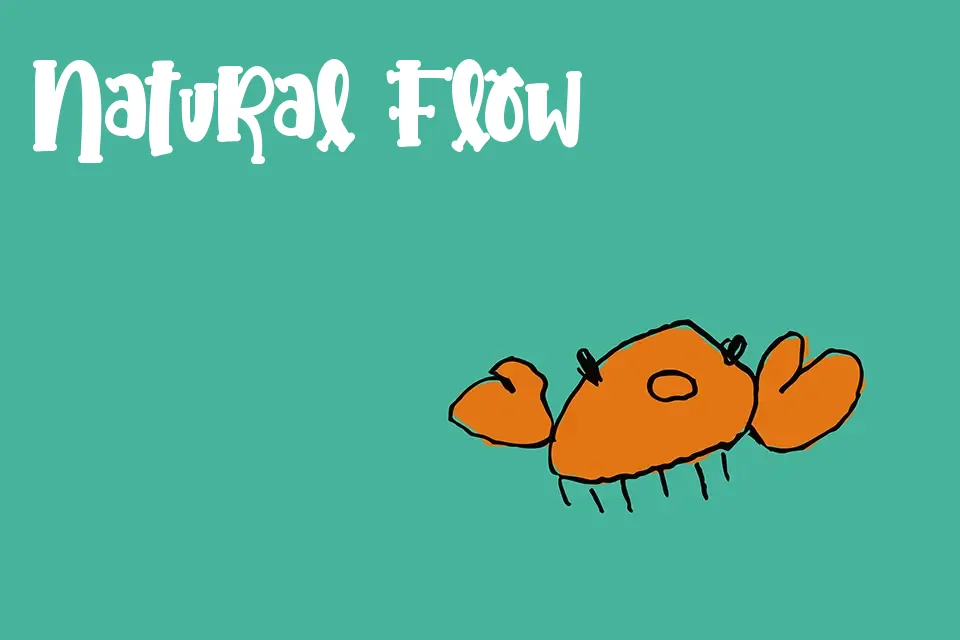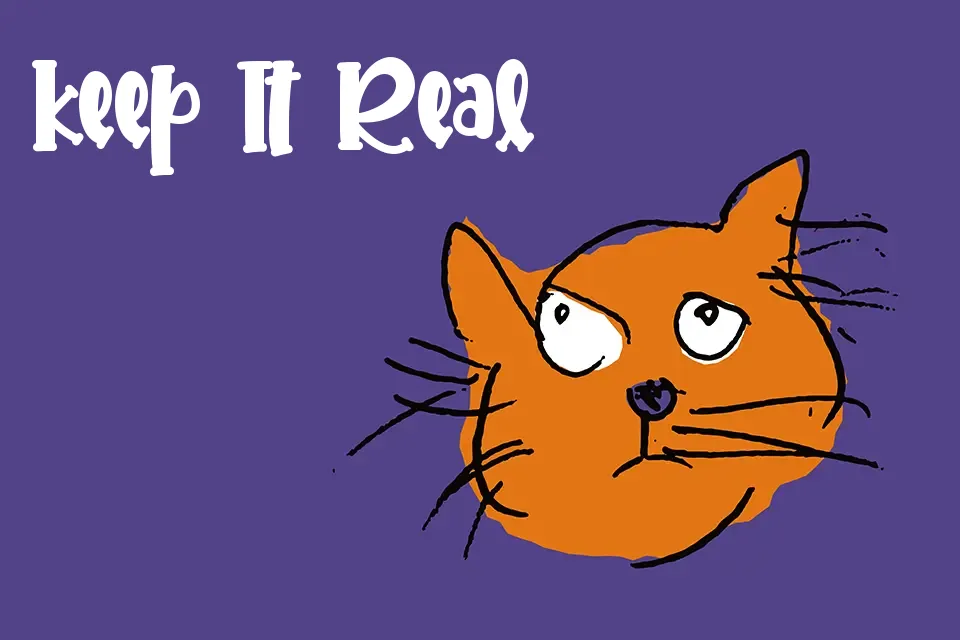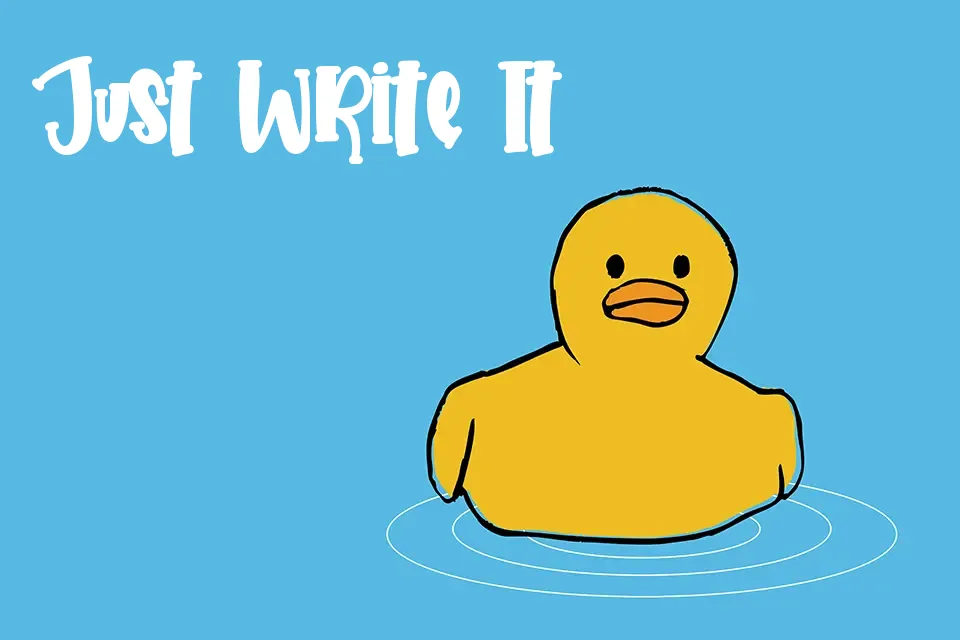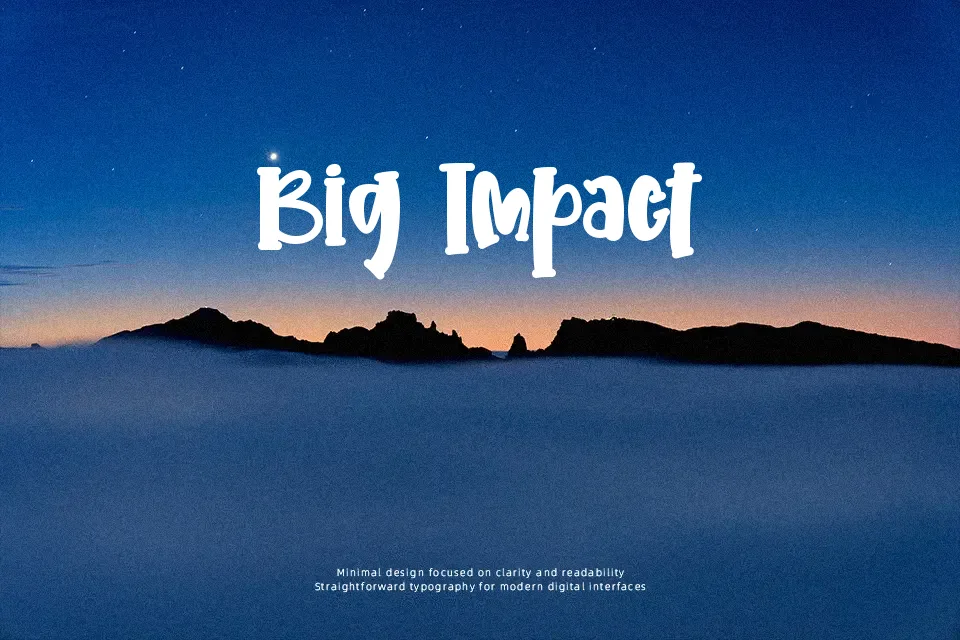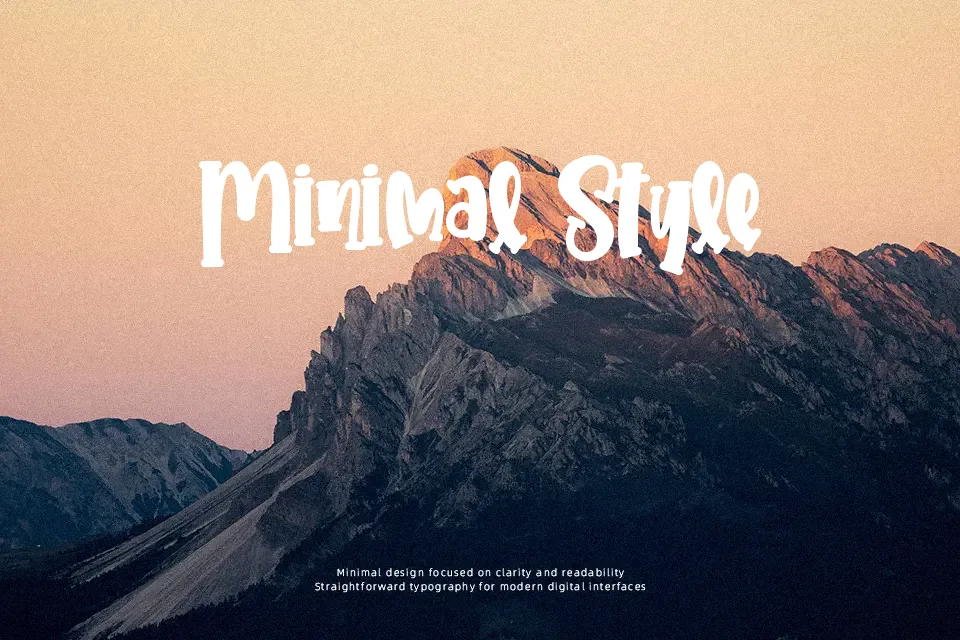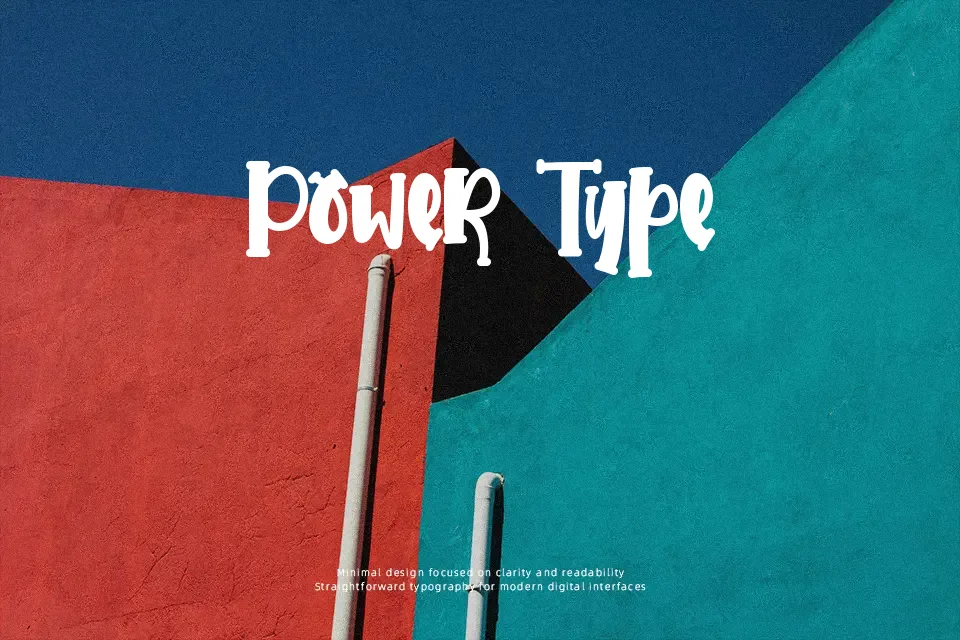
Summering Font
Summering Font uses thick, rounded handwritten forms with uneven, playful contours and a distinctly decorative display rhythm. The letters appear broad and softly shaped, while the varied details give short words an informal, crafted look. Spacing is most effective when the typeface has room to breathe in titles, labels, and graphic compositions. It reads clearly in larger display settings, particularly where a cheerful handmade tone is useful. The font is less comfortable for long passages because its expressive outlines can slow reading at smaller sizes. Its visual character works best when used sparingly as a focal typographic element.
Best For: children’s activity book covers,scrapbook-style titles,playful product packaging,short poster headlines
Perfect for headline, kids, and packaging, with a creative and decorative style.